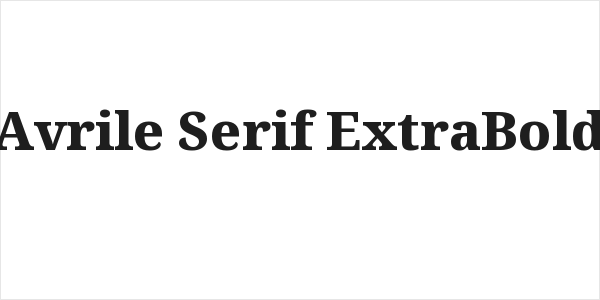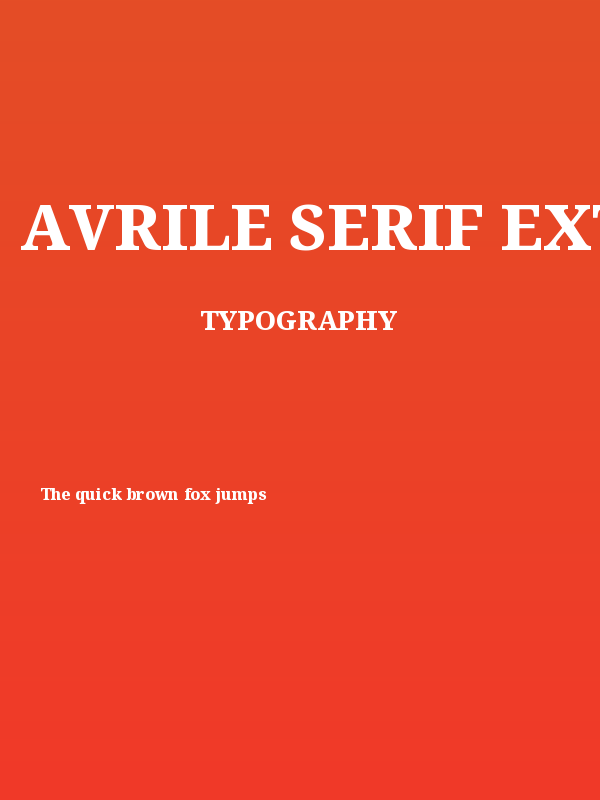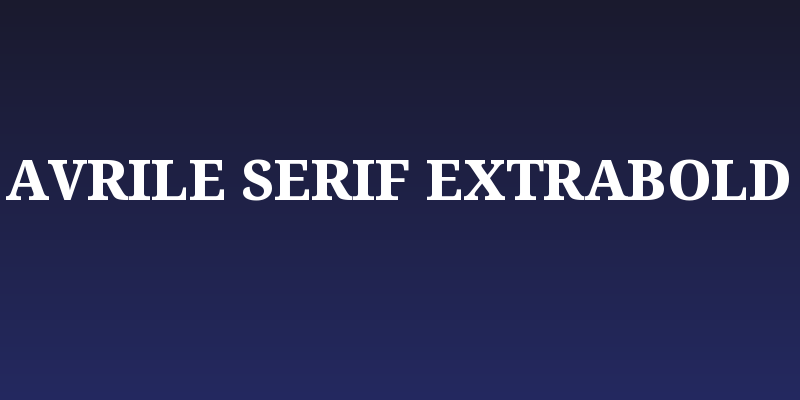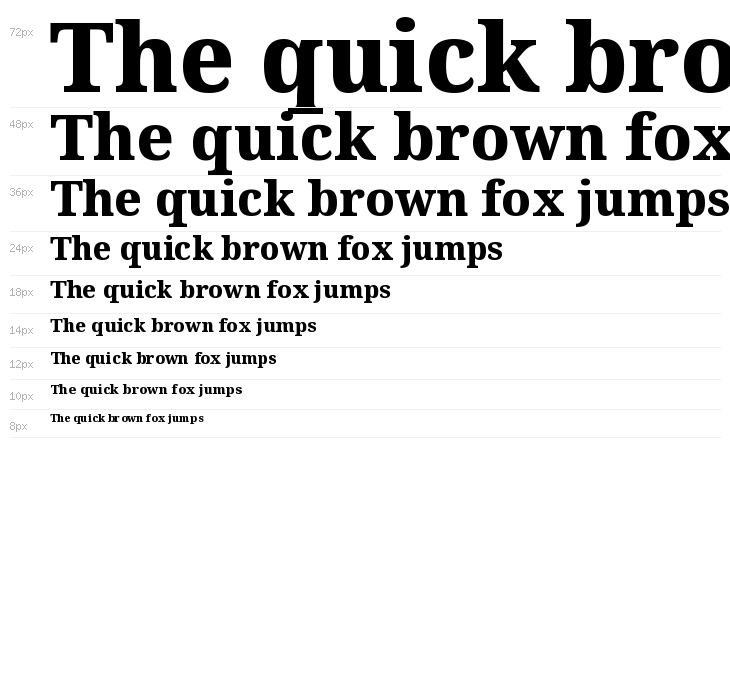
Avrile Serif ExtraBold Font
Avrile Serif ExtraBold Description
This font features a bold and commanding serif style, characterized by strong vertical lines and pronounced serifs that give it a classic yet robust appearance. The uppercase letters are tall and imposing, while the lowercase letters maintain a consistent weight, ensuring readability and balance. The numerals are clear and distinct, with a uniform thickness that complements the overall design. Special characters are well-integrated, maintaining the font's cohesive look. This font is ideal for making a strong visual impact, combining traditional serif elements with a modern boldness.
| Use Case | Headlines, Logos, Editorial Design |
| Proposed Projects | Ideal for headlines, branding, editorial design, and any project requiring a strong, authoritative presence. |